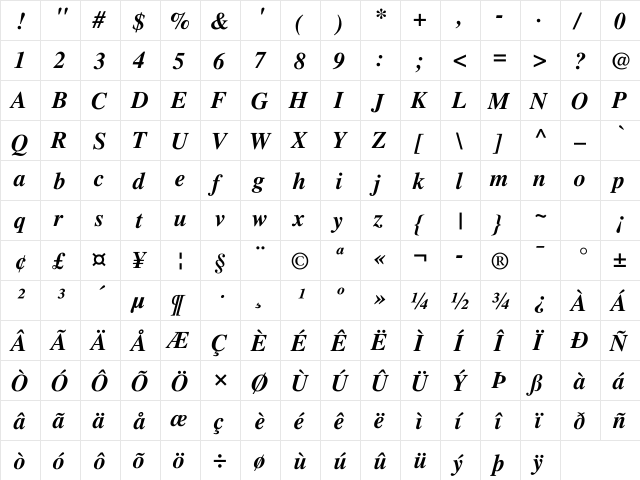
FreeSerif BoldItalic Font Preview
FreeSerif BoldItalic
FreeSerif BoldItalic Font Details
Design Context for FreeSerif Typeface
FreeSerif brings classic typographic sensibility to the table — its serifs and measured letterforms reflect centuries of print heritage. The dynamic lean of this cut emphasises speed and emphasis in any layout. Its bold stroke weight gives it real presence on the page.